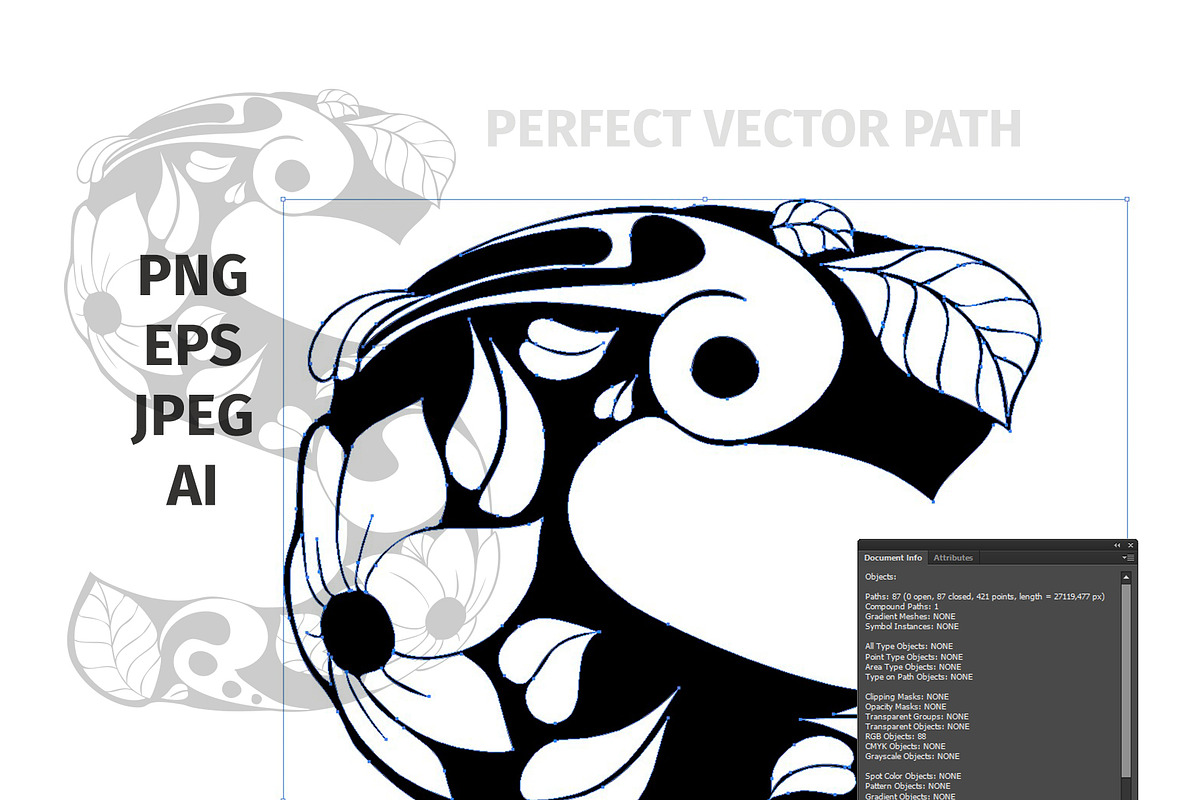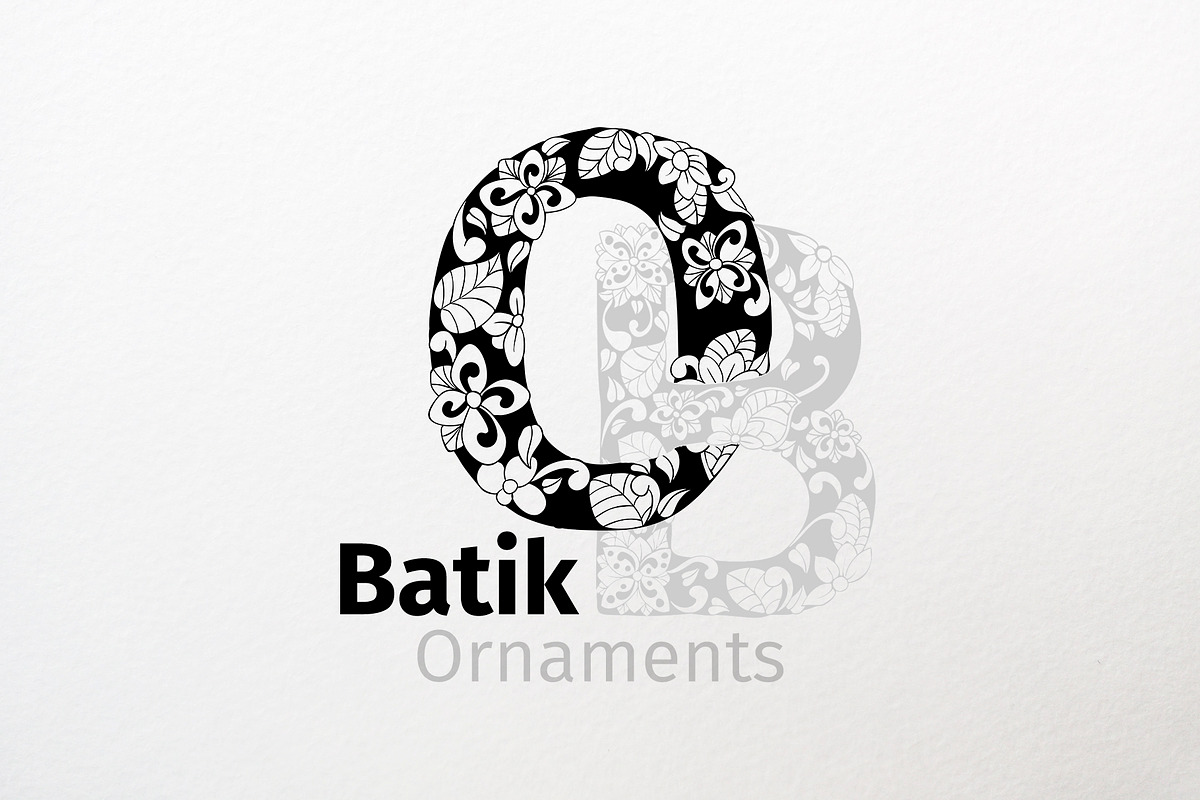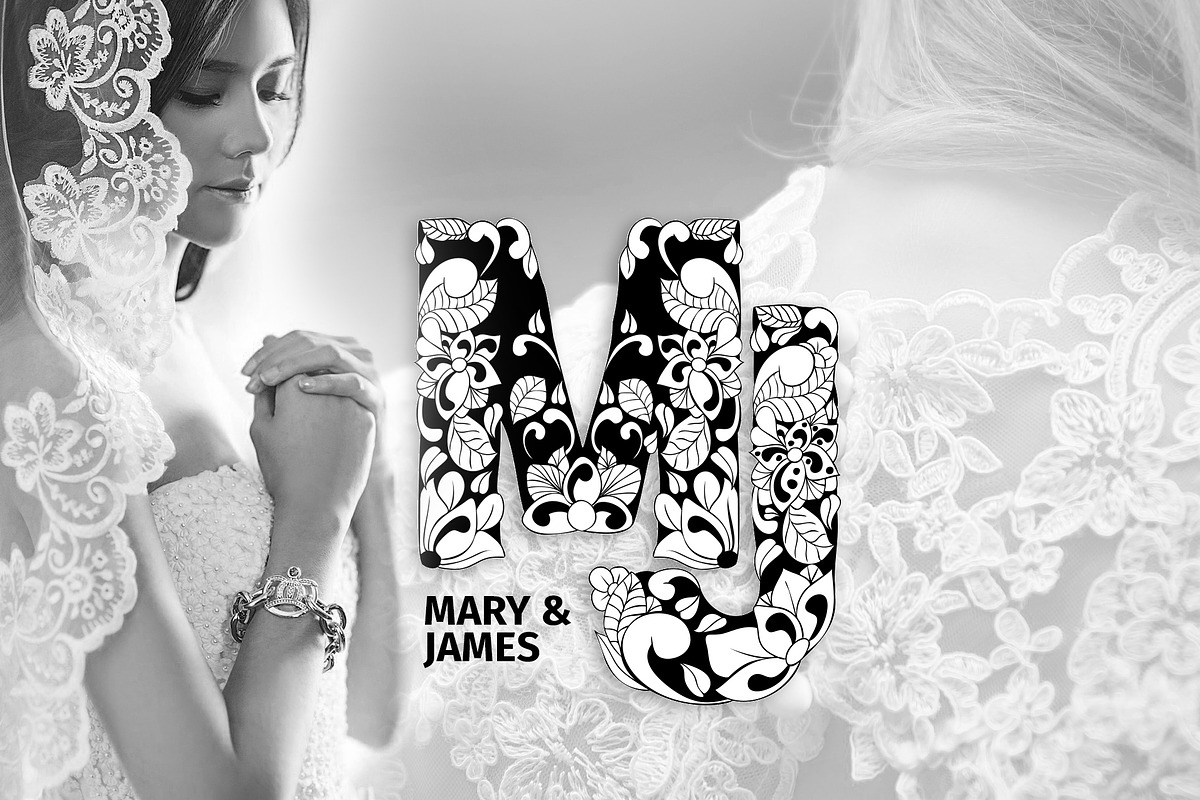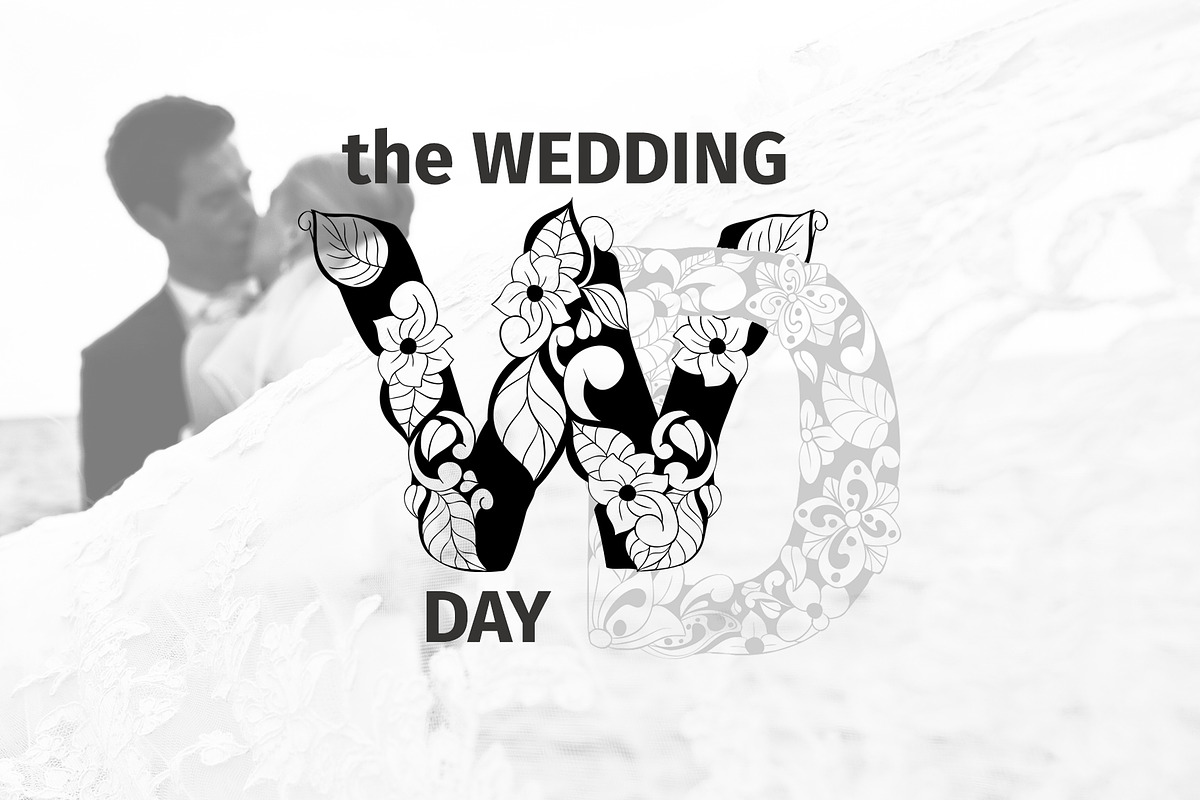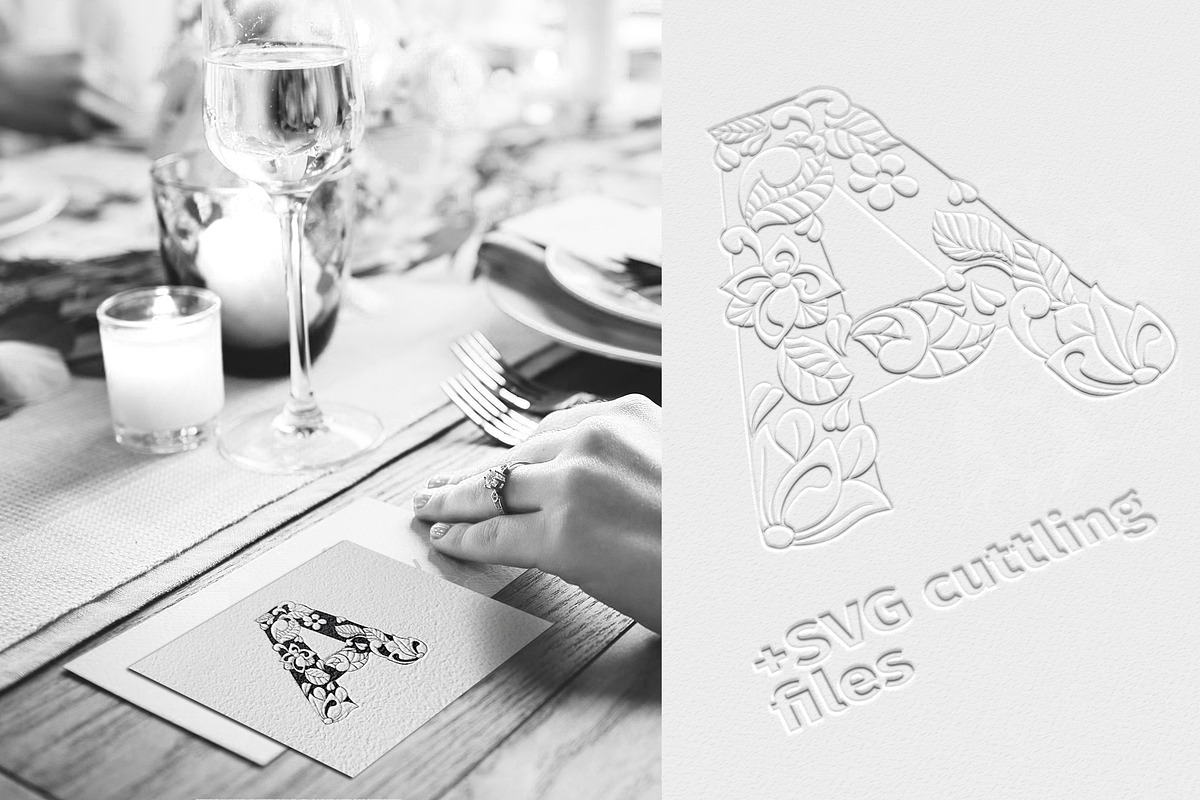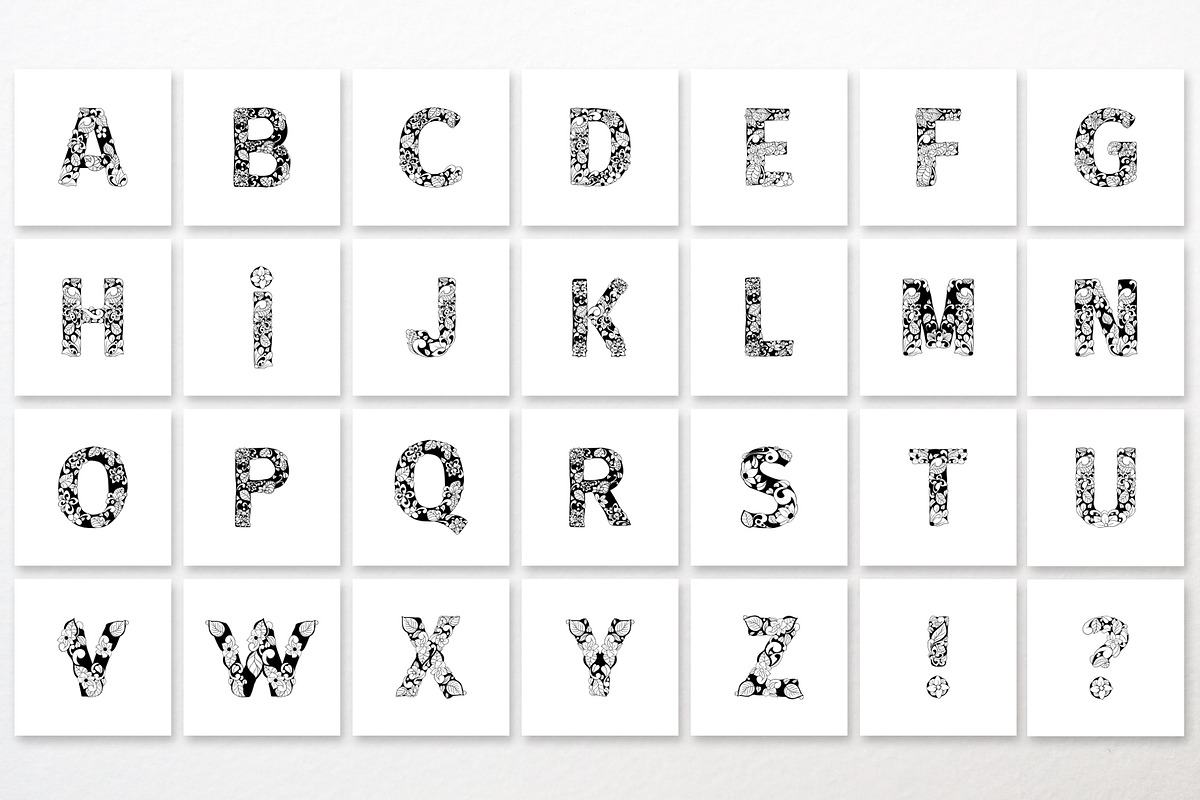
Batik Ornaments Alphabet
Amazing & Perfect letters for wedding design. Stylized batik motifs and floral ornaments. Clear vector initial letters. You may use it for engraving, laser cutting or coloring books and others.
- All letters are black (without white)